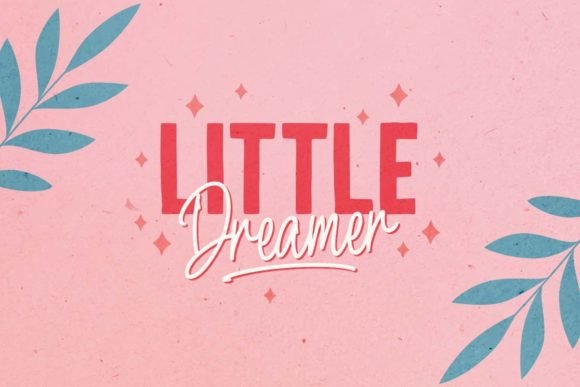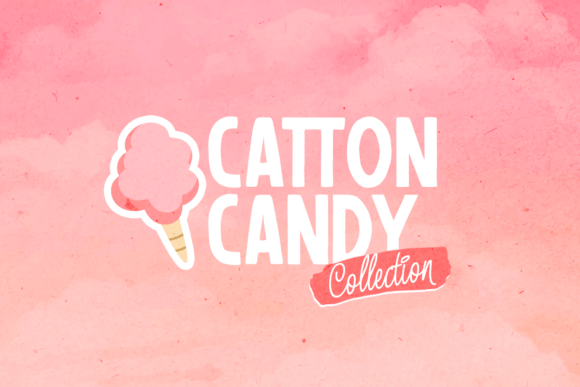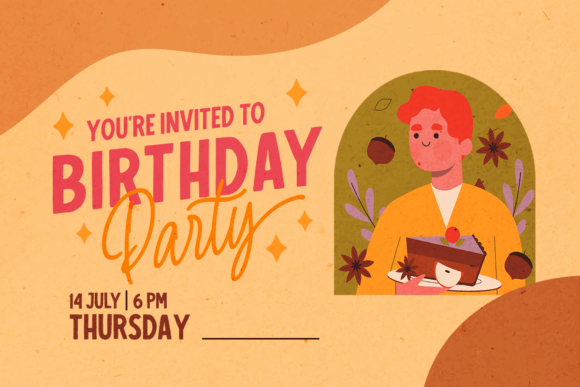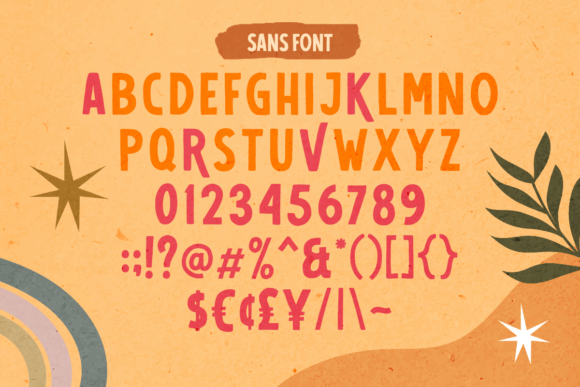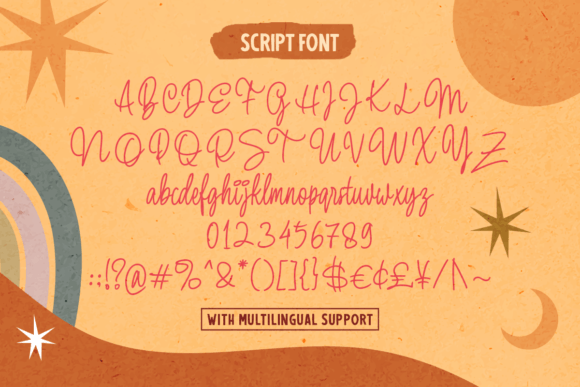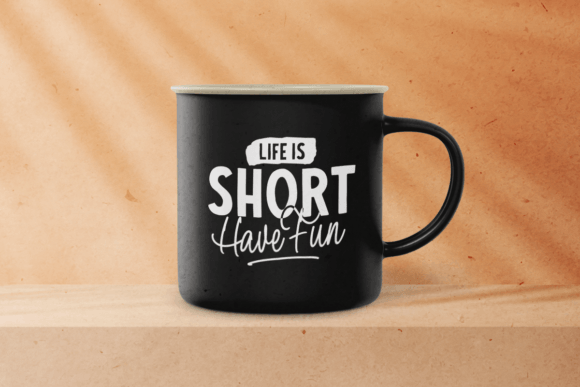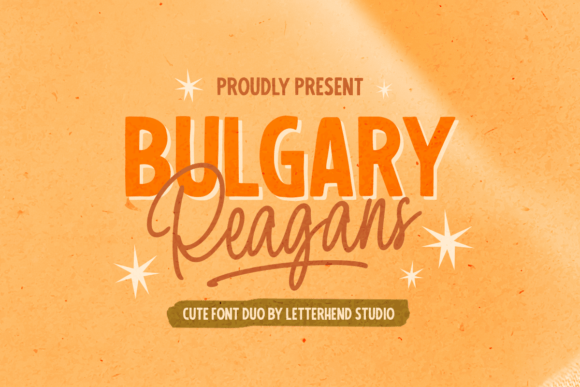
Bulgary Reagans Font: The Perfect Blend of Playfulness and Casual Elegance
In the world of typography, finding the right font can make all the difference in creating a lasting impression. For designers and crafters looking for a typeface that exudes a playful yet casual vibe, Bulgary Reagans Font is an excellent choice. This beautifully crafted font combines the simplicity of a handwritten sans serif with the elegance of a natural handwriting script, making it perfect for a wide range of applications.
A Versatile Font for Various Design Needs
Bulgary Reagans Font is a versatile typeface that can be used for various design projects, including headlines, logotypes, apparel, invitations, branding, packaging, advertising, and more. Its unique blend of playfulness and casual elegance makes it an ideal choice for designers who want to add a personal touch to their work. Whether you’re creating a logo, designing a brochure, or crafting a social media post, this font is sure to make your design stand out.
Key Features of Bulgary Reagans Font
So, what makes Bulgary Reagans Font so special? Here are some of its key features:
- Handwritten Sans Serif and Natural Handwriting Script: The font combines the simplicity of a handwritten sans serif with the elegance of a natural handwriting script, creating a unique and visually appealing look.
- PUA Encoded: Bulgary Reagans Font is PUA encoded, which means you can access all the amazing glyphs and ligatures with ease. This makes it easy to use and customize the font to suit your design needs.
- Playful yet Casual: The font has a playful yet casual feel, making it perfect for designs that require a personal touch.
Why Choose Bulgary Reagans Font?
With so many fonts available, why choose Bulgary Reagans Font? Here are some reasons why:
- Unique Look: The font has a unique and visually appealing look that will make your design stand out from the crowd.
- Versatility: Bulgary Reagans Font can be used for a wide range of design projects, from headlines and logotypes to apparel and invitations.
- Easy to Use: The font is PUA encoded, making it easy to access all the glyphs and ligatures.
- High-Quality: The font is of high quality, ensuring that your design looks professional and polished.
Tips and Tricks for Using Bulgary Reagans Font
Here are some tips and tricks for using Bulgary Reagans Font:
- Experiment with Different Sizes: Experiment with different font sizes to find the perfect size for your design.
- Play with Glyphs and Ligatures: Play with the glyphs and ligatures to add a personal touch to your design.
- Combine with Other Fonts: Combine Bulgary Reagans Font with other fonts to create a unique and visually appealing look.
In conclusion, Bulgary Reagans Font is a versatile and unique typeface that is perfect for designers and crafters looking for a playful yet casual font. With its handwritten sans serif and natural handwriting script, PUA encoding, and high-quality design, this font is sure to make your design stand out. Whether you’re creating a logo, designing a brochure, or crafting a social media post, Bulgary Reagans Font is an excellent choice.